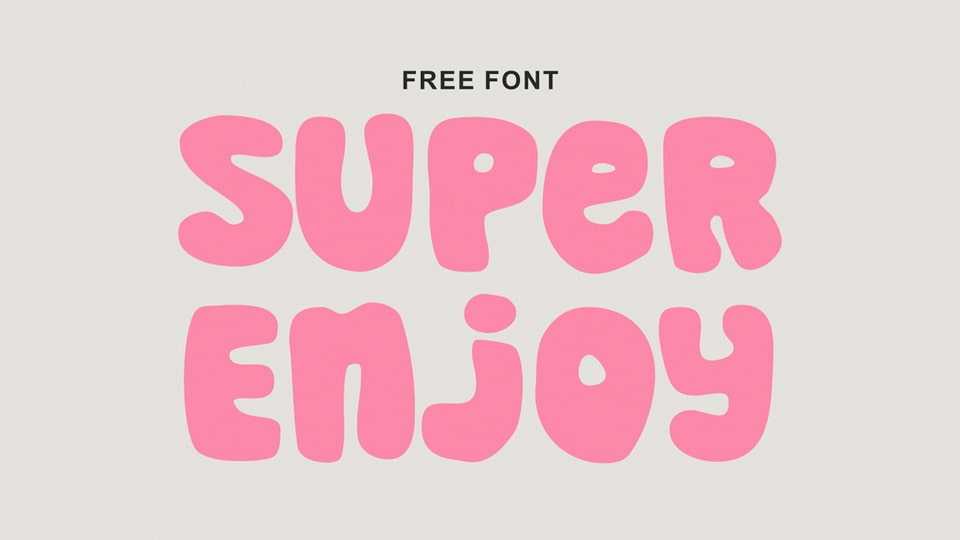
Download Super Enjoy font, a rounded, hand-lettered cartoon typeface that brings a playful and bold personality to your designs. Super Enjoy font is designed to make a bold statement while maintaining a friendly and approachable charm.